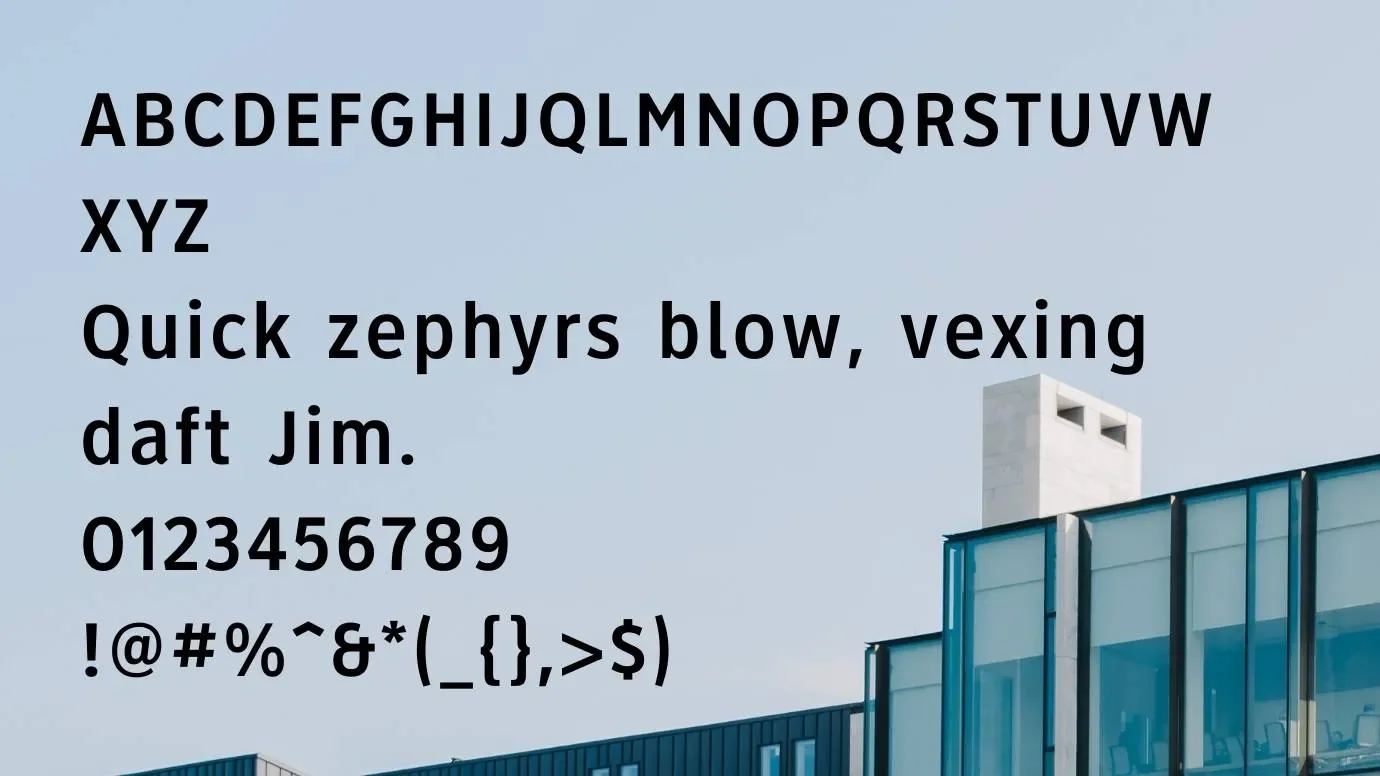
Clearview font is a high legible humanist sans serif typeface that was used for guide signboards on the roads of the USA, Canada, Indonesia, and also Israel, Sri Lanka, and the Philippines. It is also known for Clearview Hwy font, designed by Donald Meeker James Montalbano. Basically, developed by independent researchers with the aid of Pennsylvania and Texas Transportation institutes, taking supervision from the Federal Highway Administration.
After the initial experiments, it proves that this amazing typeface is 2 to 8 percent more legible for both day and night-time viewing than other signs, especially for older drivers, It has increased 6 percent increased legibility in long distances. This amazing sans serif typeface is more suitable for display and even on print media. It is specially designed for chunky texts, headlines, and titles.
Being the most legible typeface and providing a clear appearance to small text, make it very suitable for any display and printing project. It can be used for signage, logos designs, emblems, video games graphics, brochure layouts, website templates, book covers, print on fabrics like T-shirt designs, Billboards, Business and Invitation cards, Product packaging, Apparel, Branding projects, and webpages. You can also get hands-on with this typeface with the pairing of Brothers font.
Moreover, if you need a typeface that gives a humanistic touch to your texture content then this font is for you. It is also great for headlines, titles as well as small texts. It is also highly used for Powerpoint presentations, quotes, and Newspaper headings. You can also use it for Youtube thumbnails because of its high-quality look.
What font is Clearview?
This is a humanist sans serif typeface that is also known as ClearviewHWy. It is highly used for signs on the road of New York, Sri Lanka, and Canada.
Who designed the Clearview font?
This is a sans serif typeface, a most legible font even for long distances. The designer of this typeface is Donald Meeker, James Montalbano.
What is the closest font to the Clearview font?
This typeface has many more similar fonts like FF Mark Font that you can find on the internet but the high Gothic font is the most similar and alternative to this amazing sans serif typeface.